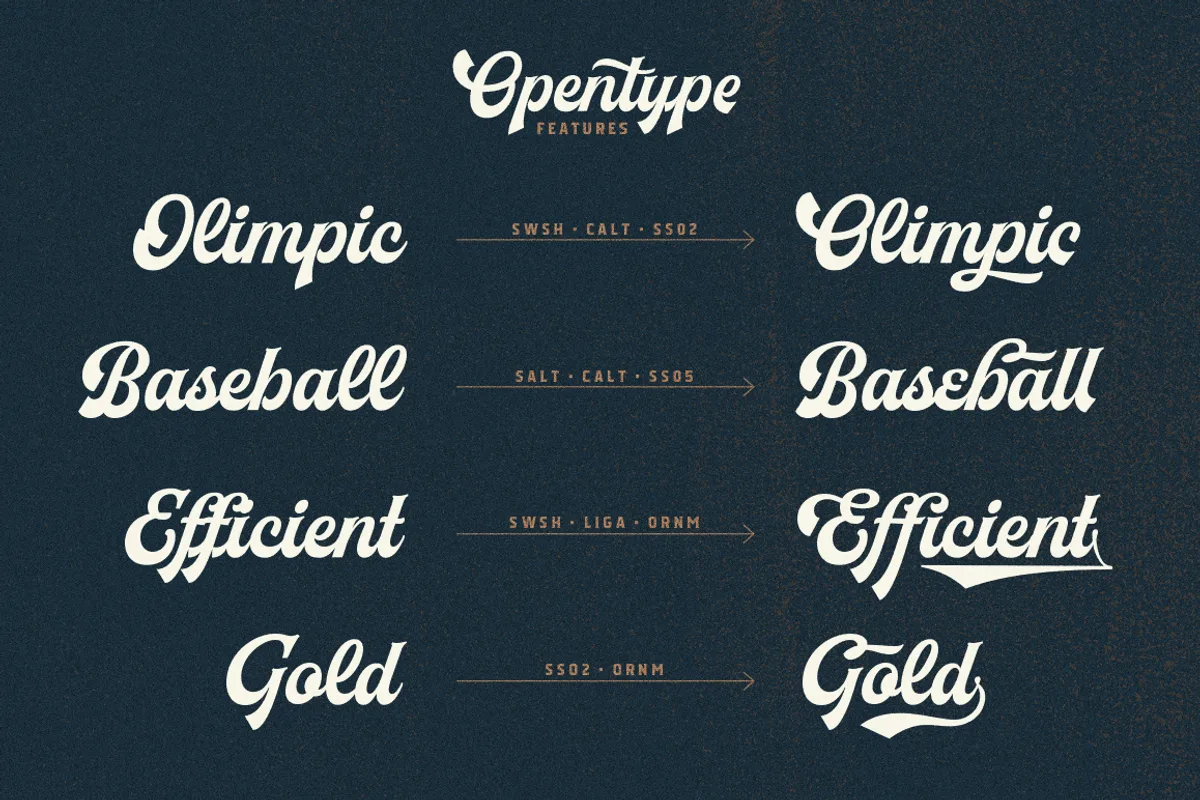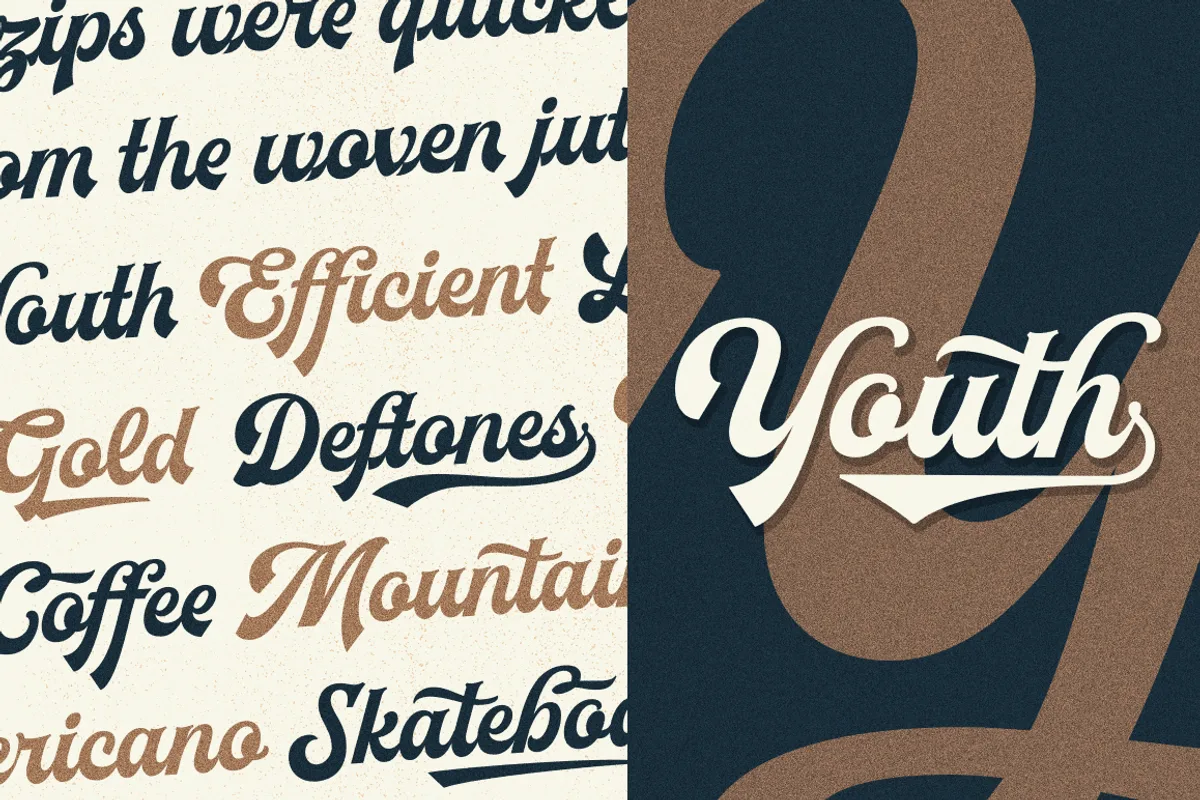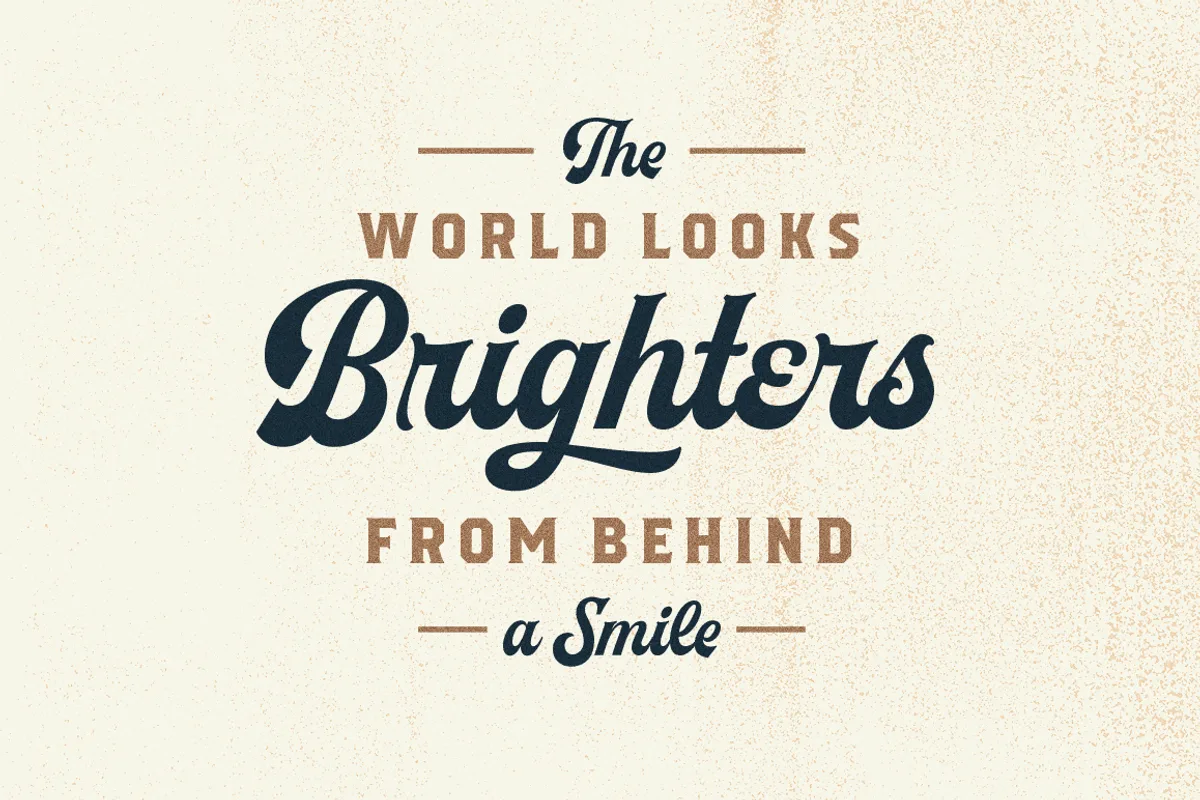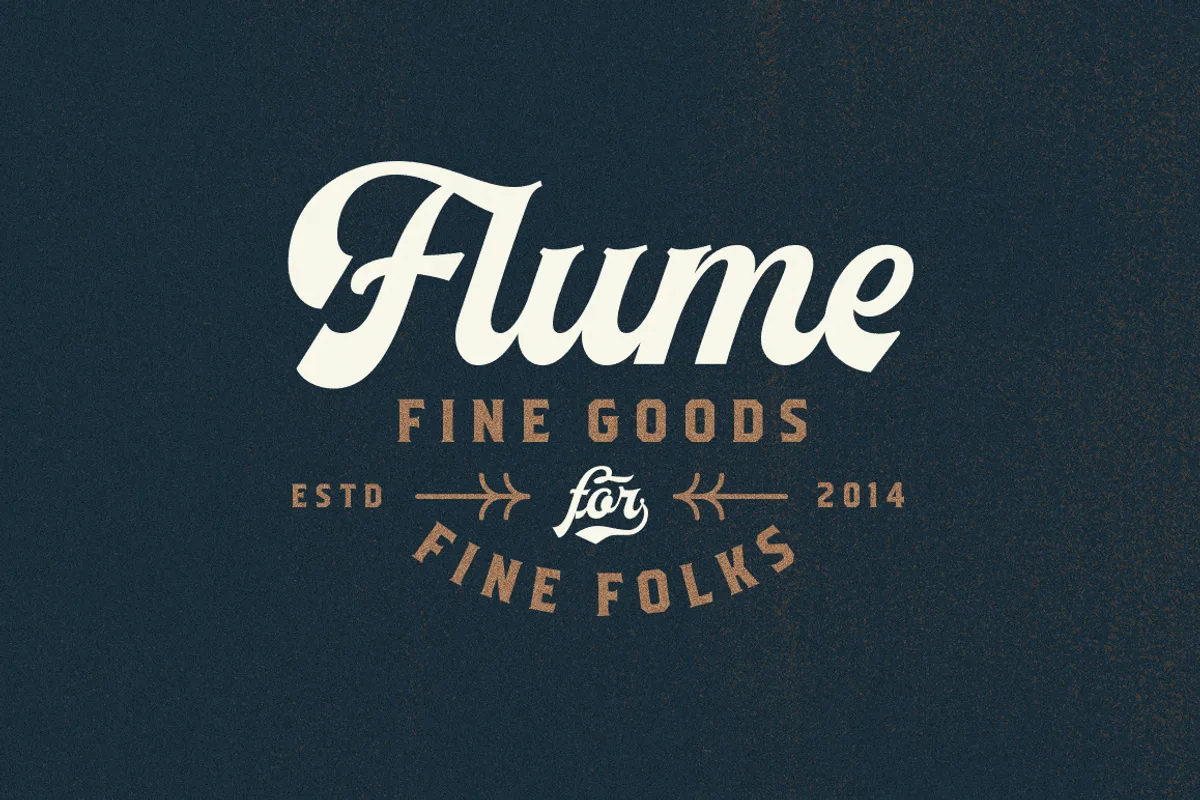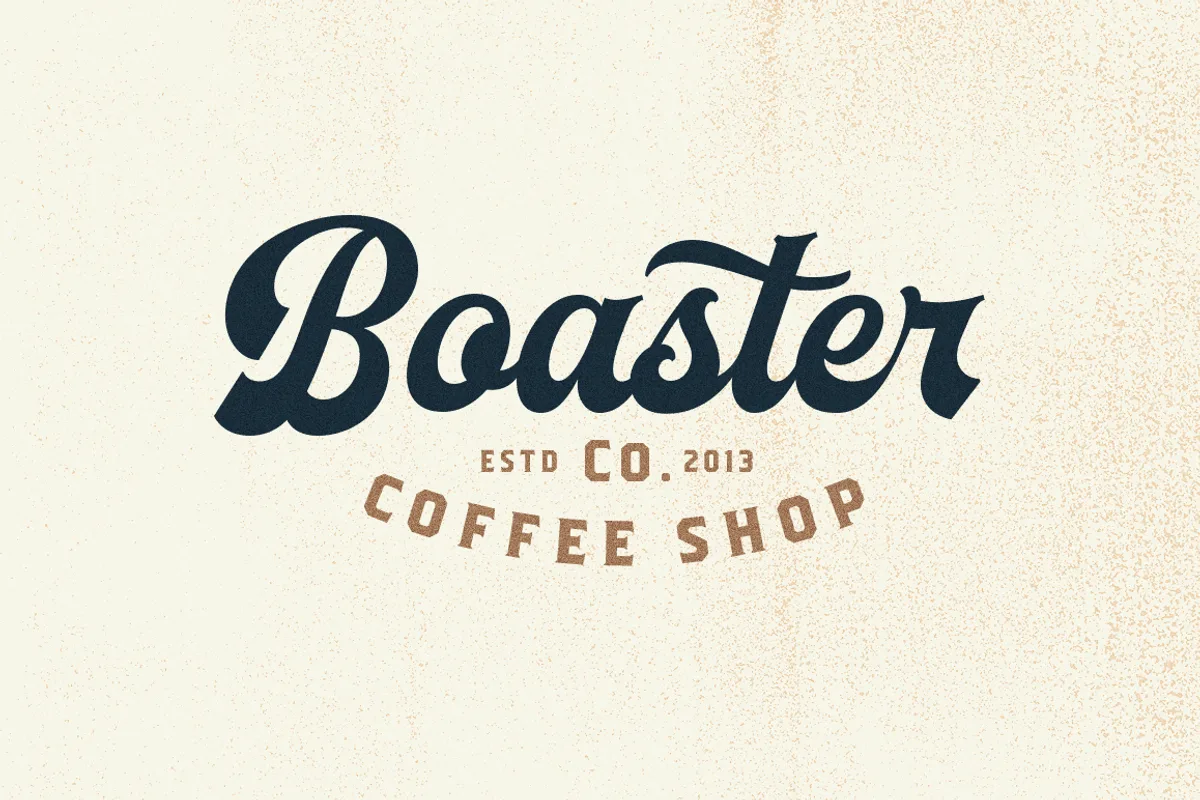
Herchey Font
Herchey is a high quality script font with swashes inspired by modern vintage design and baseball logo. Plus OpenType features with Stylistic Alternates, Swashes, Ligatures, Stylistic set, Terminal Form and Ornament that allows you to mix and match pairs of letters to fit your design. This font good for vintage design, t-shirt, logo, labels, badges, posters and etc.
Herchey Serif : secondary font matching to pair with hershey script. thick and strong character make your design more interesting.
Herchey font preview — sample text
Herchey font alphabet, numbers and glyphs
Herchey font style preview
Herchey font used in a design mockup
Herchey font detail preview